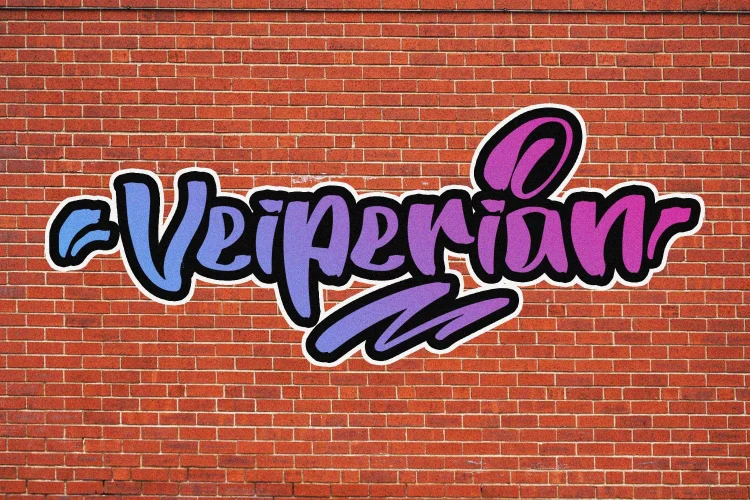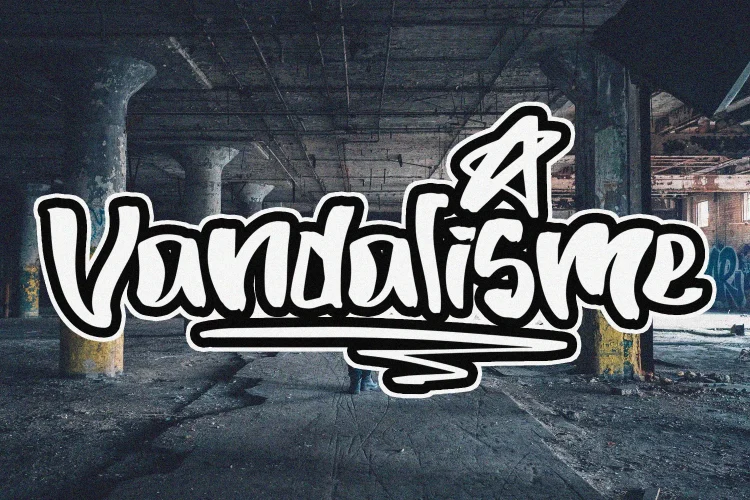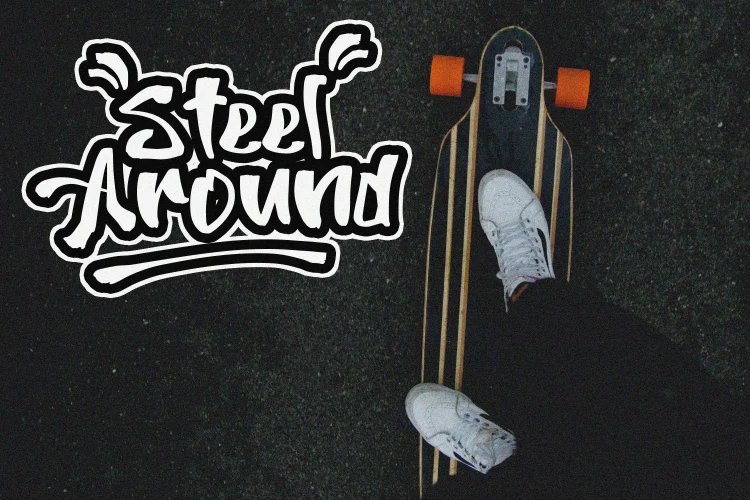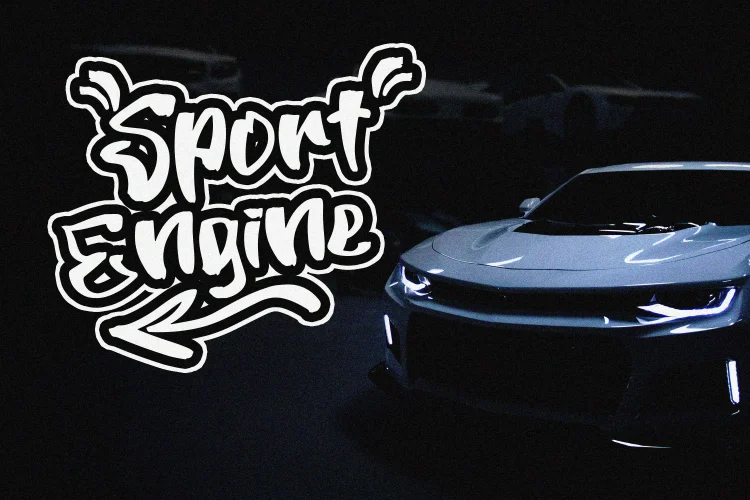
Veiperian is a beautiful graffiti font with hand brush style. Is a font style that is made with scratches and nice shapes font characters are very beautiful. Can be applied to support the graphic appearance of the product to be more attractive and unique.
- Ligature
- Stylistic Alternate
- Swashes